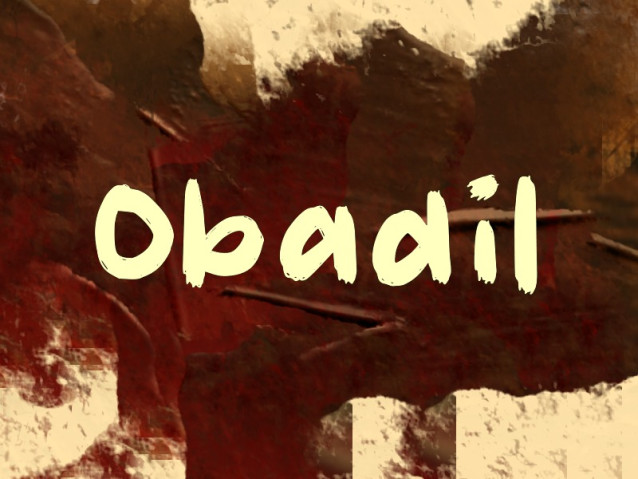
Obadil Font
Obadil Font This font is a hand-drawn brush style typeface with a bold, organic, and expressive character.Its rough edges and uneven strokes give it a natural, handmade feel, making it ideal for creative designs such as posters, album covers, branding, quotes, and artistic titles.